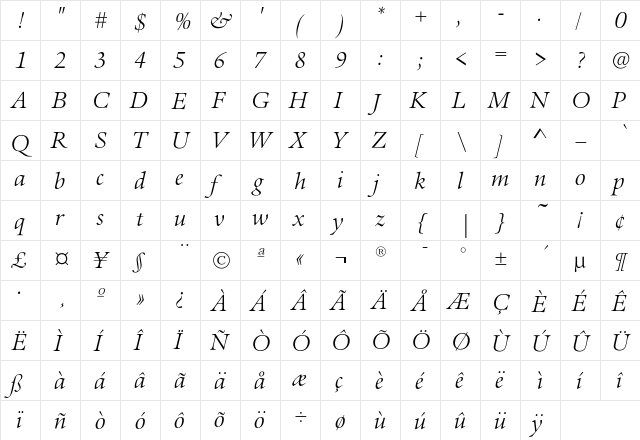
AureliaEF-LightItalic Regular Font Preview
AureliaEF-LightItalic Regular
Design Context for AureliaEF-LightItalic Typeface
AureliaEF-LightItalic is a composed and adaptable typeface that performs quietly and consistently across a wide range of design contexts. The dynamic lean of this cut emphasises speed and emphasis in any layout. Its slender proportions lend an understated elegance to any composition.
Pro Tip: Use AureliaEF-LightItalic for emphasis, pull quotes, and subheadings where its slanted energy can add rhythm to the layout.